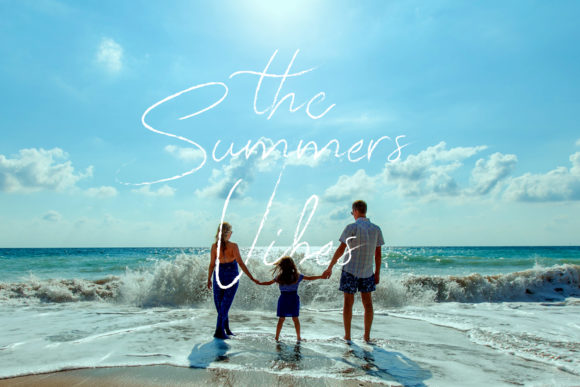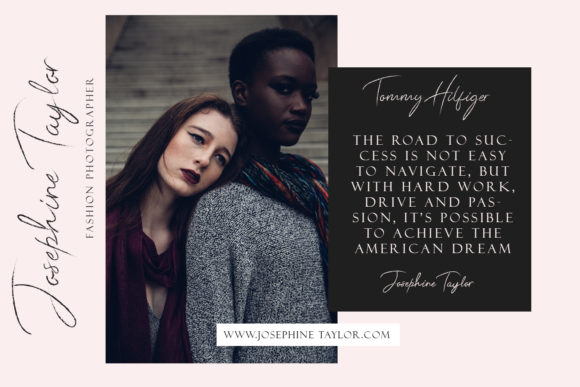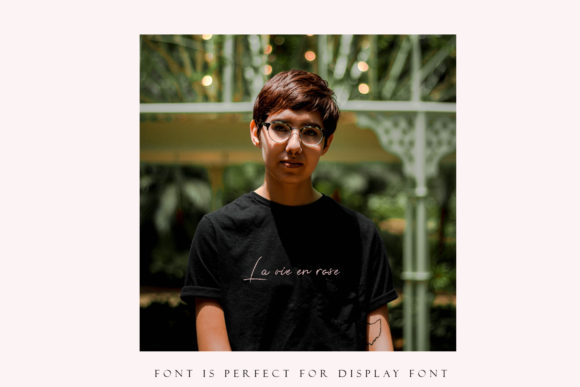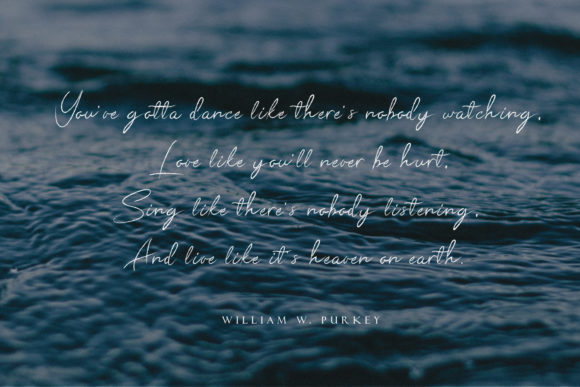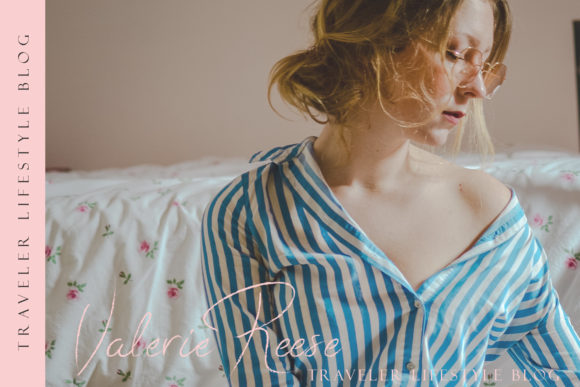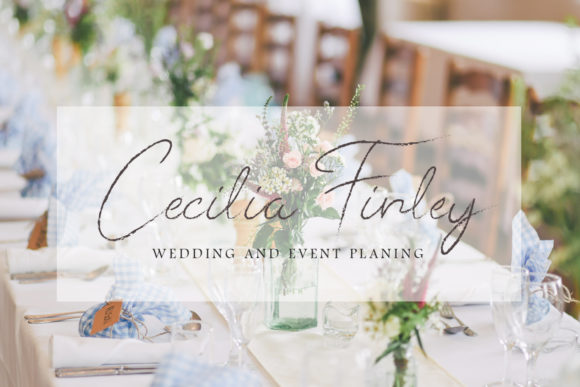
Introduction to Donatella Font
Have you ever stared at a blank canvas, feeling like you’re missing that one special element to bring your creative project to life? That’s where the Donatella Font comes in – a game-changing design resource that can elevate your work and leave a lasting impression. Its lovely curves and versatility make it the perfect addition to any project, from a casual blog post to a sophisticated brand identity.
What sets Donatella Font apart is its ability to seamlessly transition between styles, making it a valuable asset for designers. Whether you’re working on a high-quality brochure or a free download for a creative community, this font’s adaptability ensures that your design will shine. With its transparent background and high-quality design, Donatella Font is the perfect choice for designers looking to add a touch of sophistication to their work.
Key Features of Donatella Font
- Comes in a single weight, offering a clean and elegant aesthetic for text-based designs.
- Unique characteristics include its modern and sophisticated feel, making it perfect for fashion, luxury, and high-end branding projects.
Honest Review: Donatella Font
I recently had the chance to work with the Donatella Font, and I must say it’s been a game-changer for my creative projects. This high-quality font is perfect for designers who need a versatile and elegant typeface.
- High-quality design: The Donatella Font is incredibly detailed and refined, making it perfect for a wide range of design applications.
- Transparent background: The font’s transparent background makes it easy to layer over images and other design elements, giving me more creative freedom.
- Limited language support: While the Donatella Font is available in several languages, it’s not as comprehensive as some other fonts on the market.
- No bold or italic variants: While the font itself is beautiful, it would be nice to have some additional variants to add more depth to designs.
Overall, I’m really impressed with the Donatella Font. It’s a high-quality design resource that’s perfect for designers working on creative projects. While it has some limitations, I think it’s well worth checking out for anyone looking for a elegant and versatile typeface.
The Donatella Font is suitable for various design projects, including logos, business cards, brochures, and social media graphics. Its transparent background makes it an excellent choice for designs requiring a subtle, elegant look.